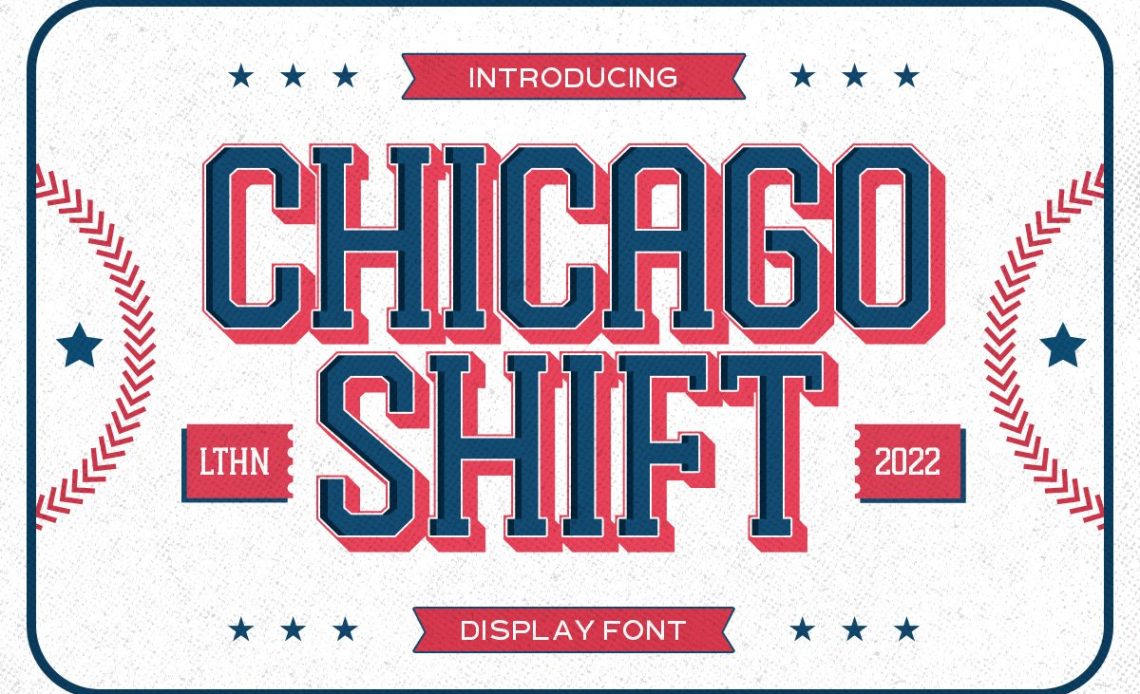
Introducing Chicago Shift - Sport Font, the ultimate font made for all your sport-themed needs. Created by the talented Hendry Juanda, this slab serif font is perfect for headlines, logotypes, apparel, invitations, branding, packaging, advertising, and so much more. With its unique blend of old school vintage charm and modern aesthetics, Chicago Shift is guaranteed to make your designs stand out from the crowd.
What sets Chicago Shift apart from other fonts is its incredible versatility and attention to detail. This font comes in both uppercase and lowercase letters, ensuring that you have all the tools you need to create captivating designs. But it doesn't stop there - Chicago Shift also includes a wide range of punctuations, symbols, and numerals, allowing you to fully customize your creations.
But the real magic lies in the font's extensive features. Chicago Shift supports multilingual characters, making it accessible to users from all around the world. Additionally, it offers alternates and ligatures, giving you even more creative freedom. And to top it all off, Chicago Shift is PUA encoded, guaranteeing seamless compatibility with various design software.